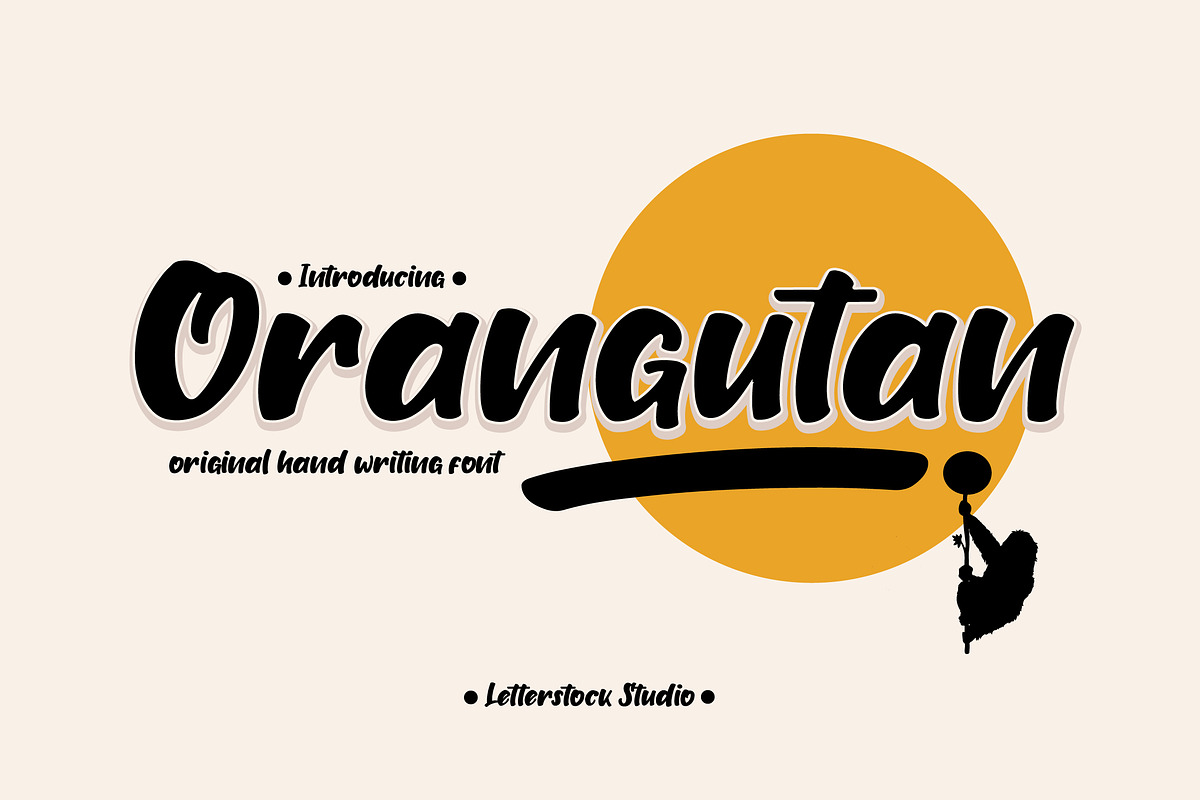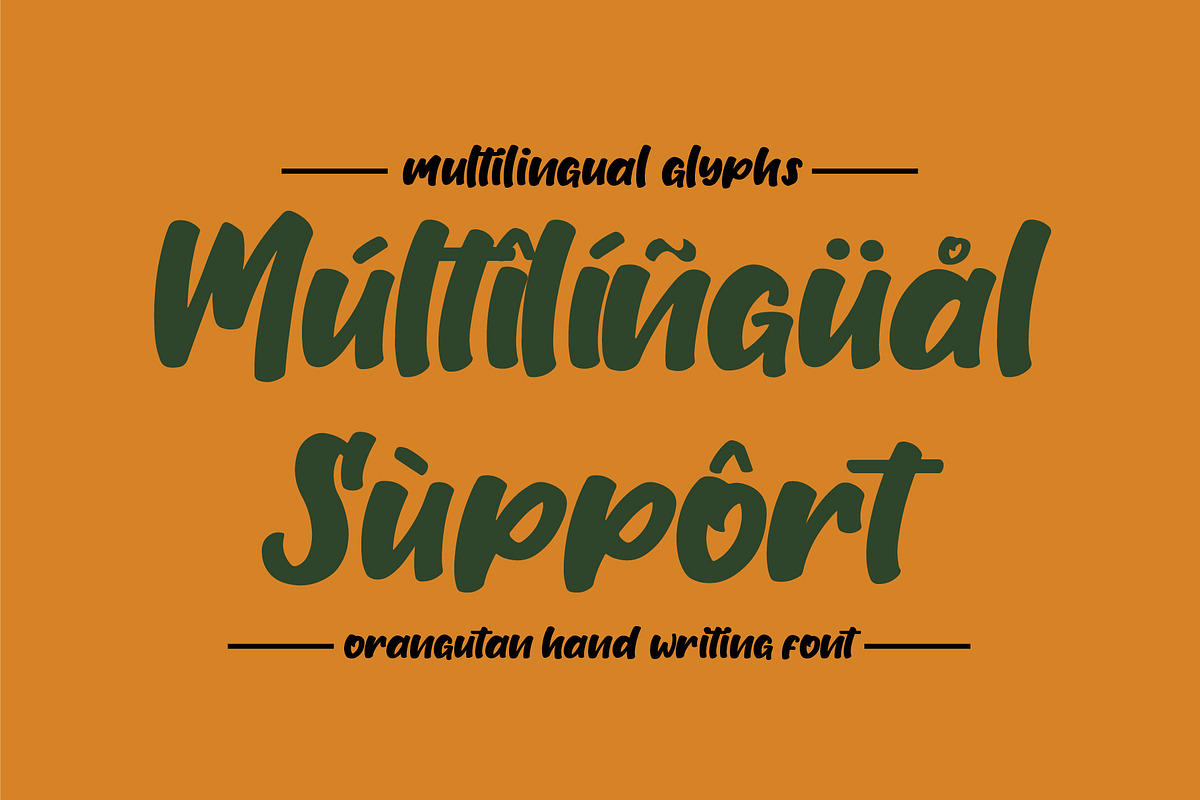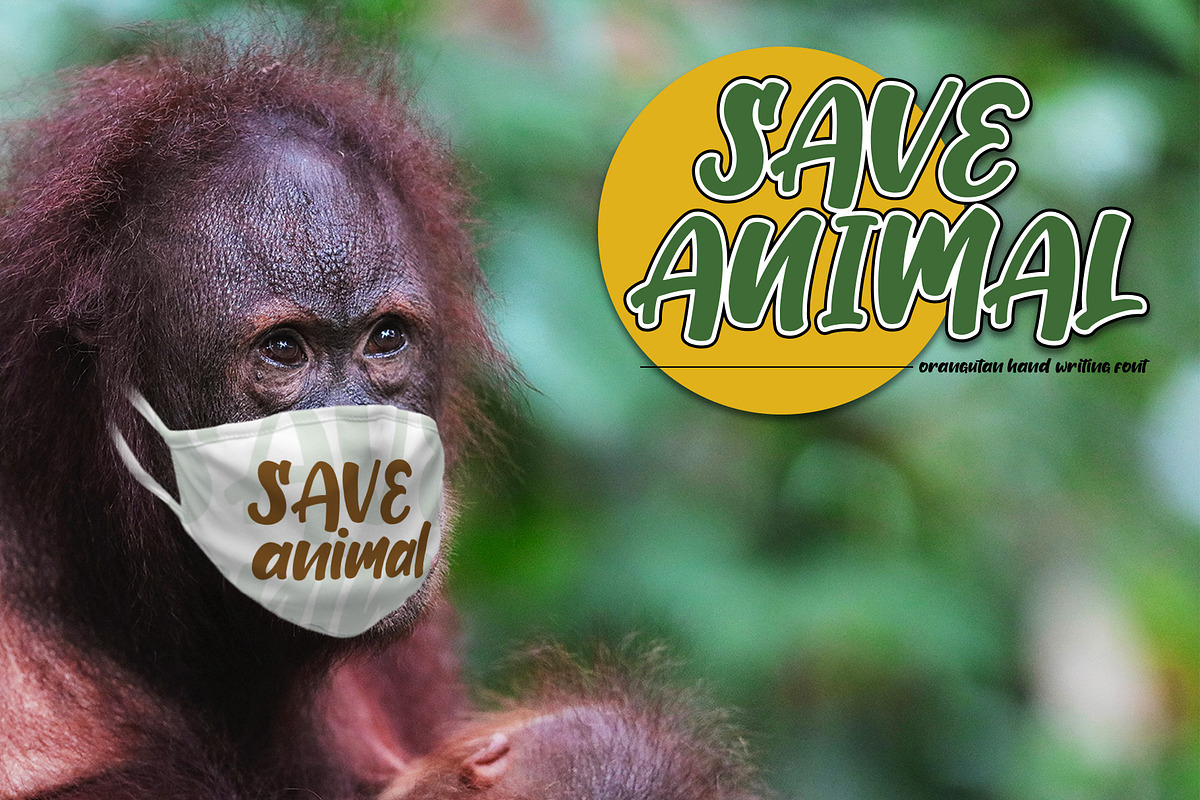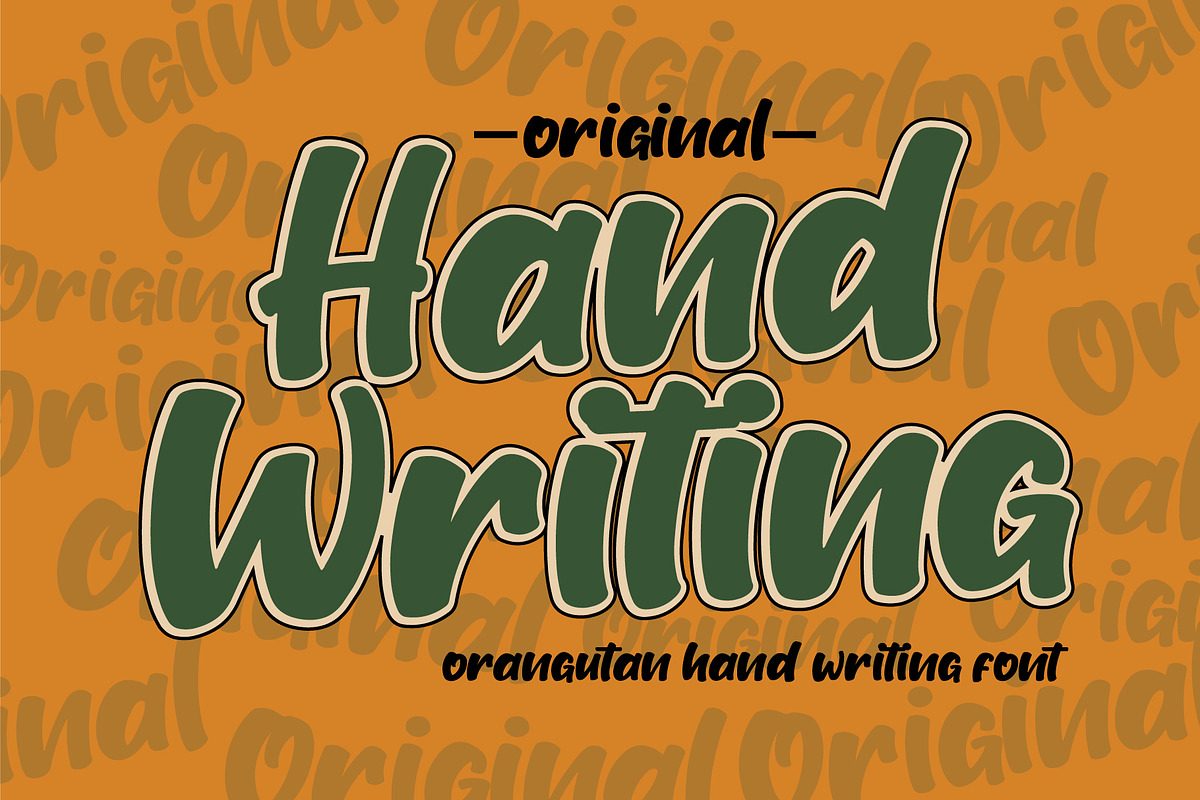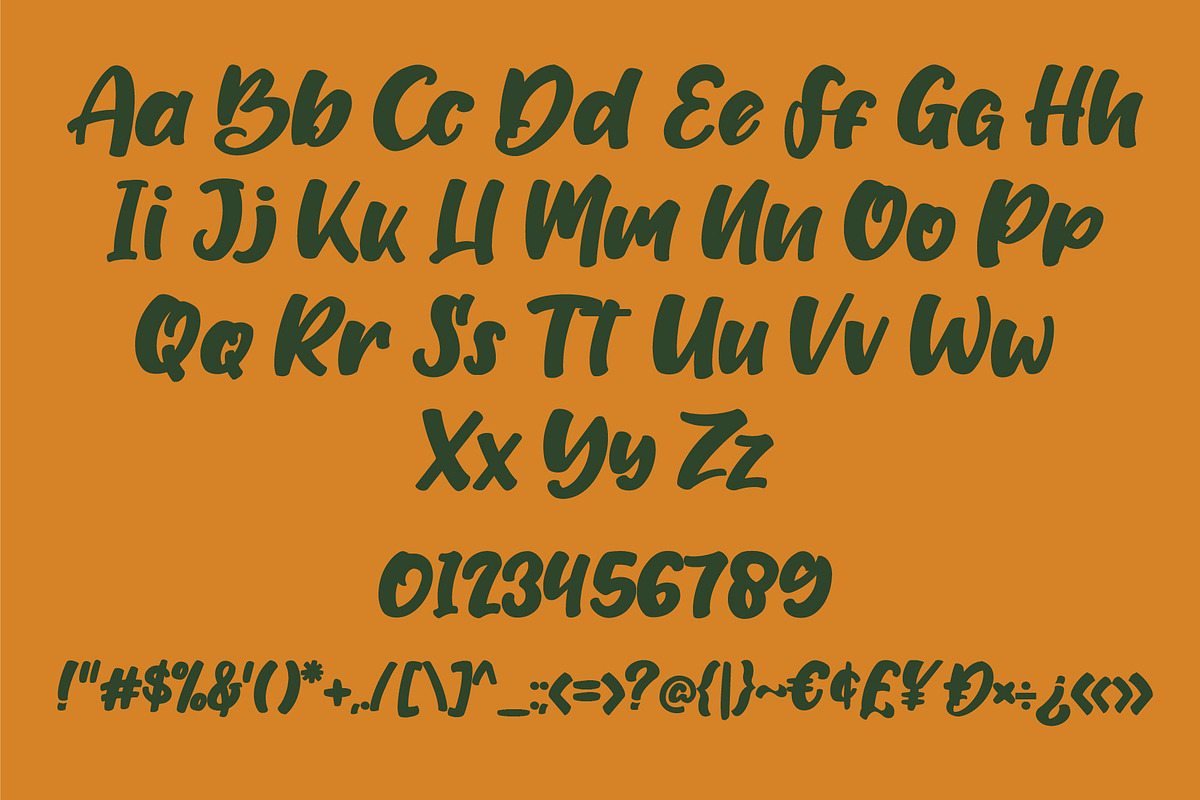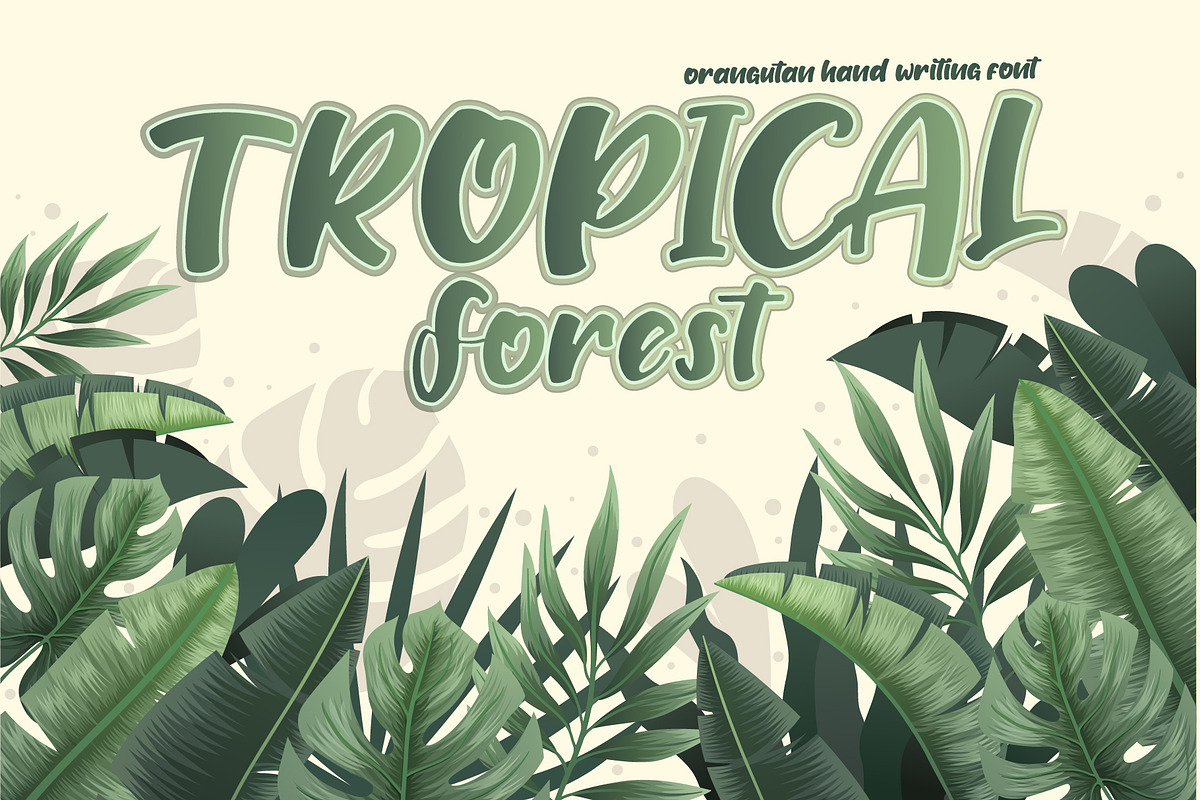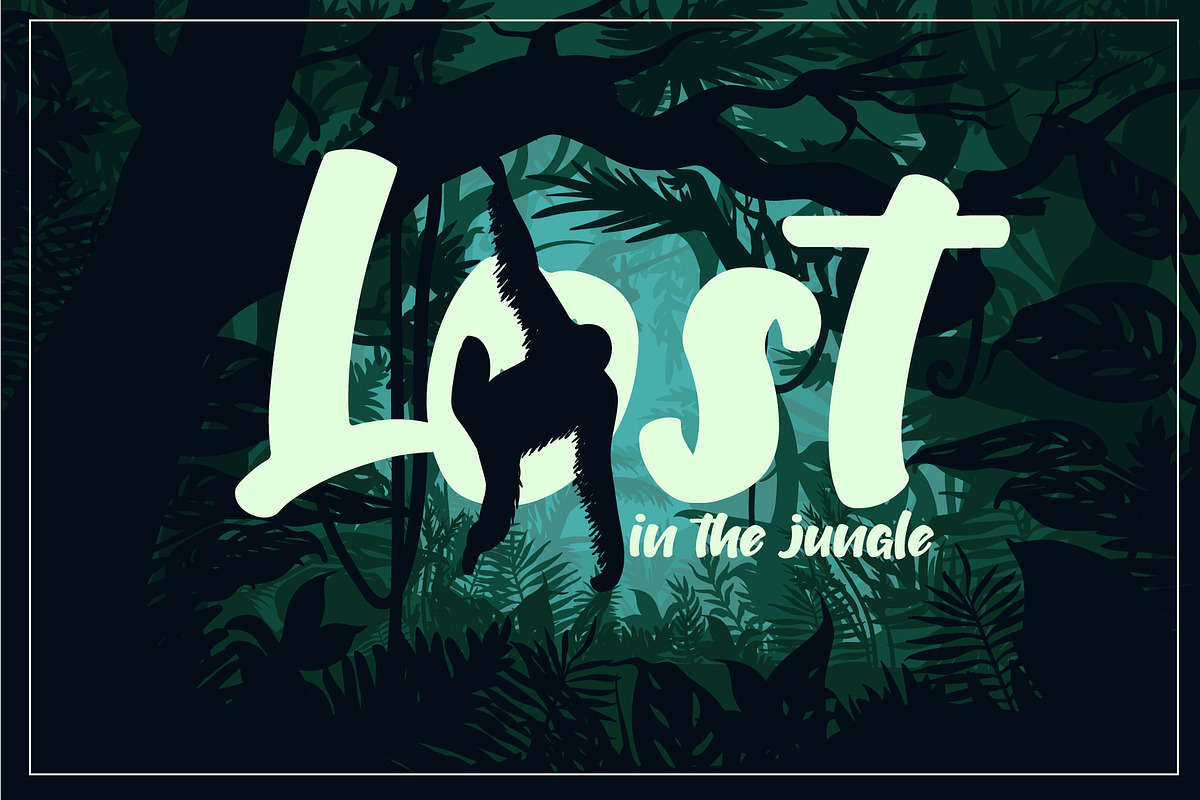
Orangutan
Orangutan Font
This pair was inspired by the retro poster design that i saw on some coffee shop, It was crafted by hand specially to add natural handmade feeling in its brand identity than i make it clean with pentool.
Opentype features Orangutan font has 171 character set included Orangutant Font is very good looking in logo, labels, t-shirt prints, product packaging, invitations, advertising and others.